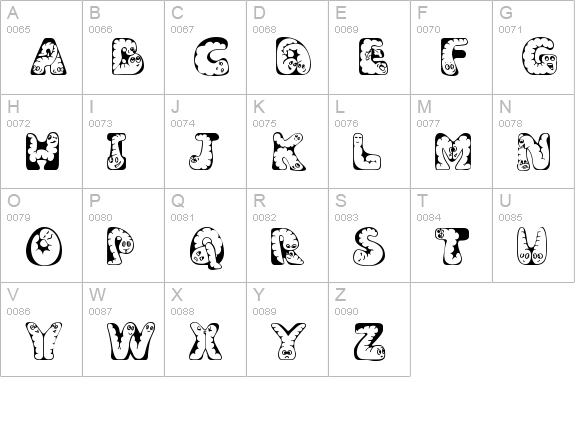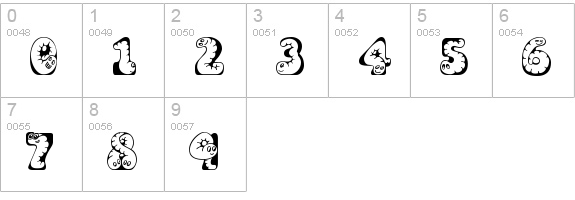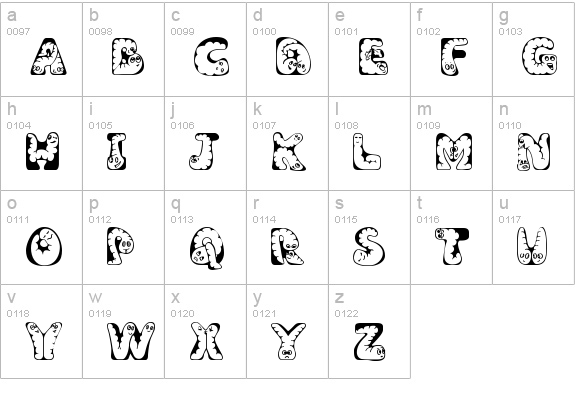
Wiggles Font Details
Introducing Wiggles, a whimsical and playful font that will add a touch of fun to any project. This free font is perfect for designs that require a lighthearted and cheerful vibe. With its unique hand-drawn style, Wiggles brings to life a sense of spontaneity and joy, making it an ideal choice for children's books, party invitations, greeting cards, and more. The letters of Wiggles font dance across the page, each one displaying a charming quirkiness that is sure to capture attention. The uneven lines and slightly exaggerated curves give this font a delightful handmade feel, adding character and personality to your designs. Whether you're creating a logo, a poster, or a social media graphic, Wiggles will infuse your project with a sense of playfulness and creativity. And the best part? Wiggles font is freely available to download at FontsMarket.com. Yes, you read that right! You can easily access this delightful font without spending a dime. FontsMarket.com is your go-to source for high-quality fonts, and Wiggles is just one of the many fantastic options they offer. So why wait? Give your designs a touch of whimsy and download Wiggles font today. Let your creativity run wild with this charming and freely accessible typeface.